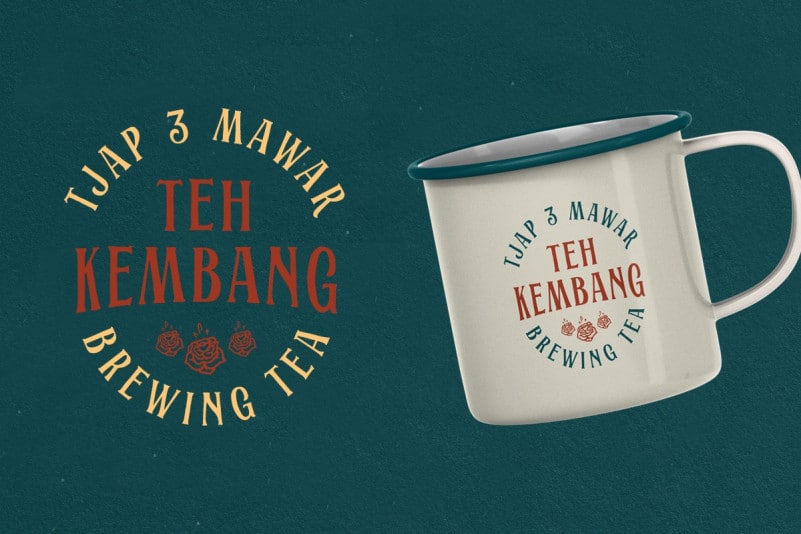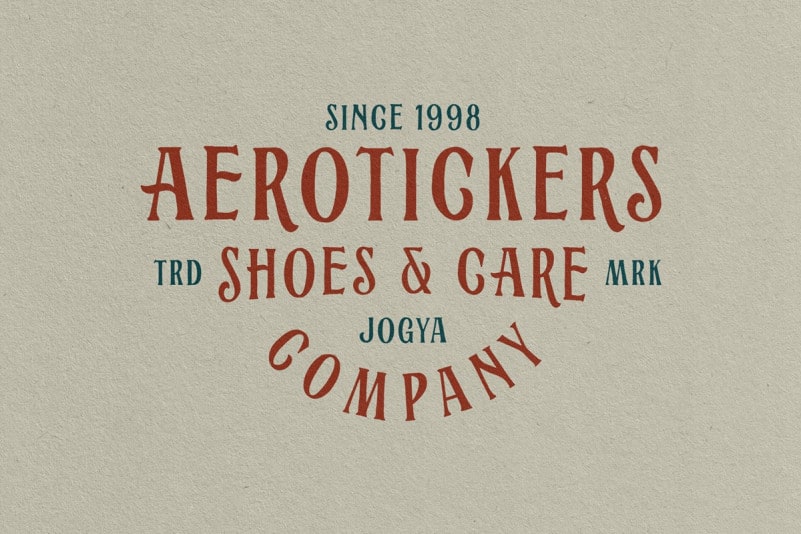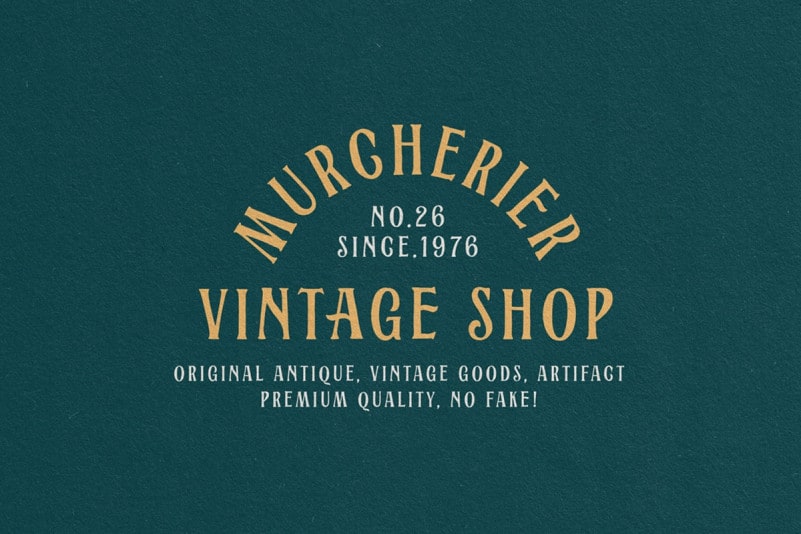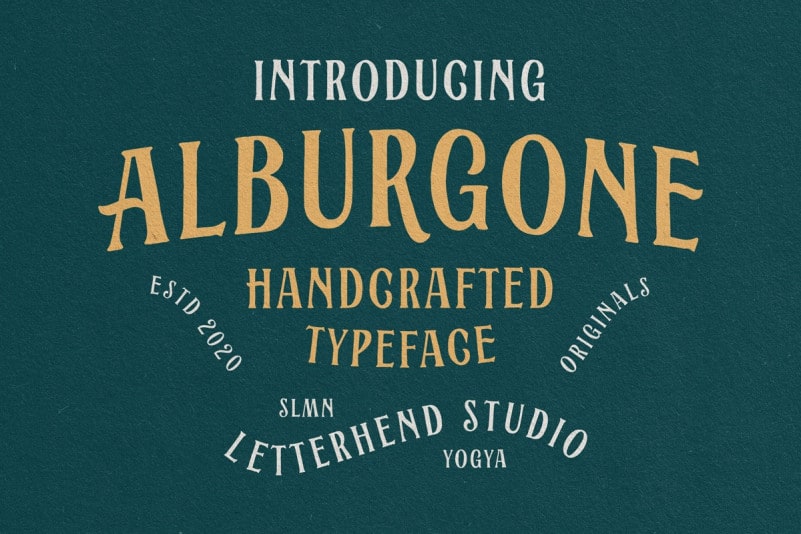
Alburgone Display Font
Alburgone Display Font is a lombardic font which consists of uppercase letters. This font is designed to be simpler, which was inspired by several social media posts and letter books. This font is designed and shared by Letterhend Studio. A hand lettering typeface with nostalgic look and feel! This font perfectly made to be applied especially in logo, and the other various formal forms such as invitations, labels, magazines, books, greeting / wedding cards, packaging, fashion, make up, stationery, novels, labels or any type of advertising purpose.